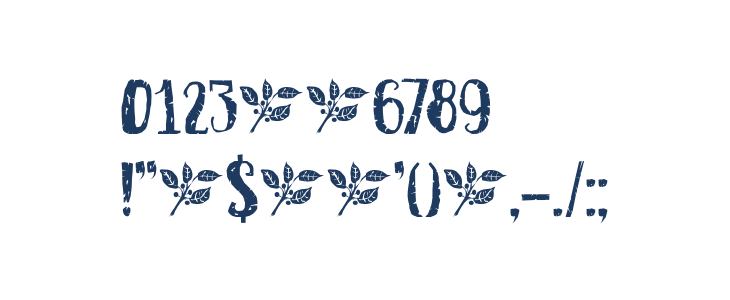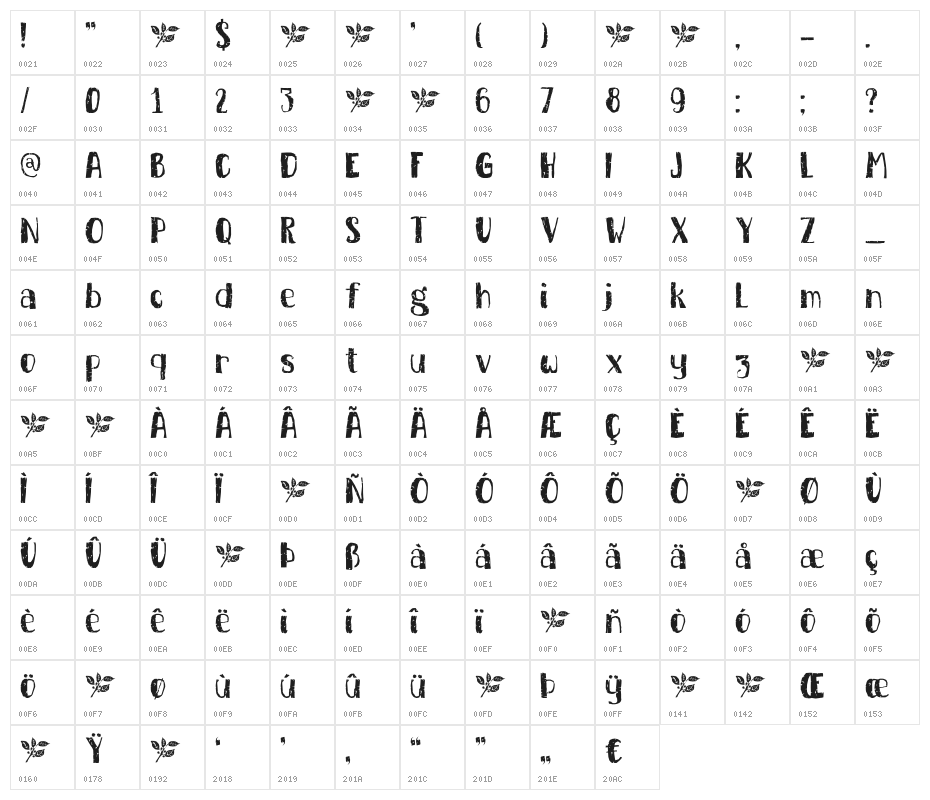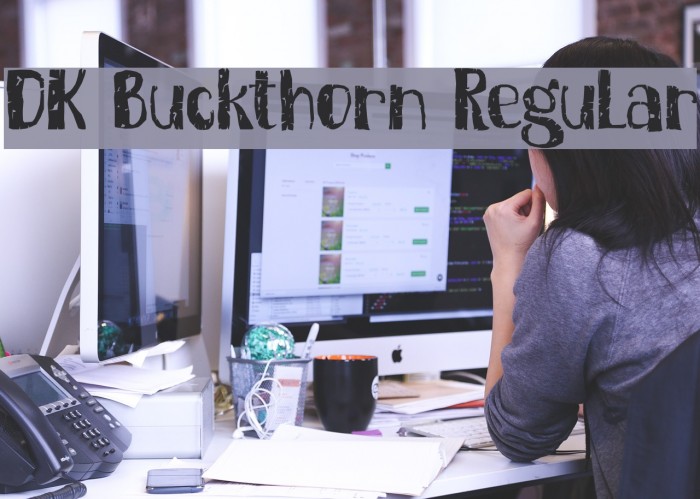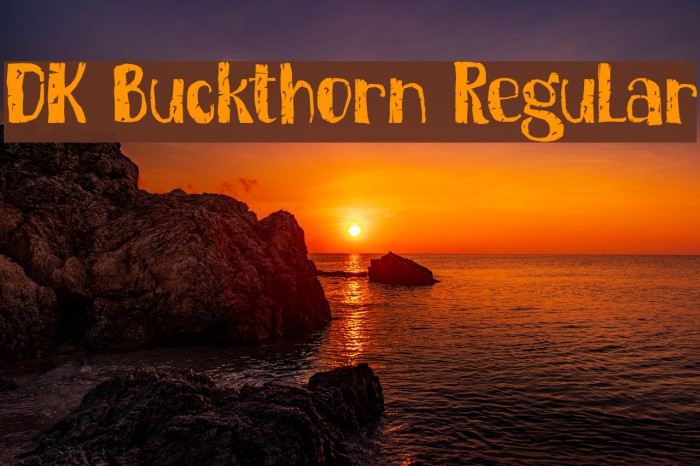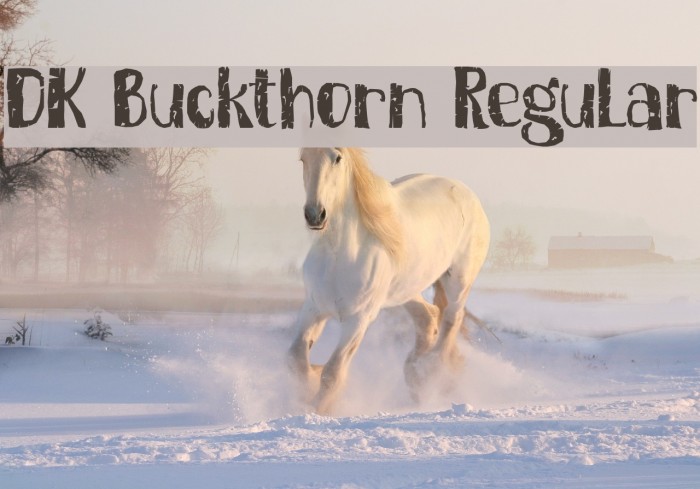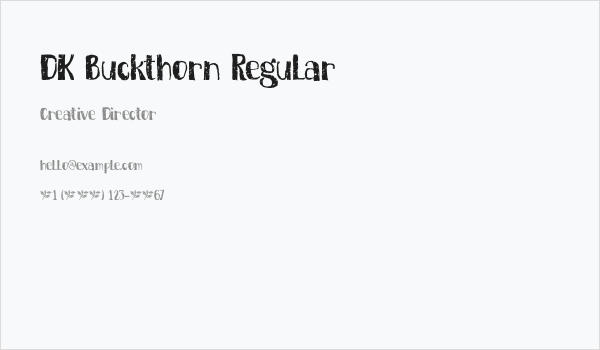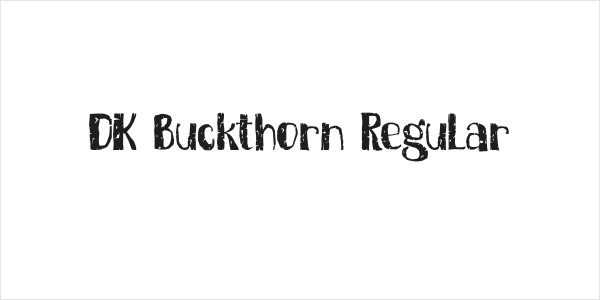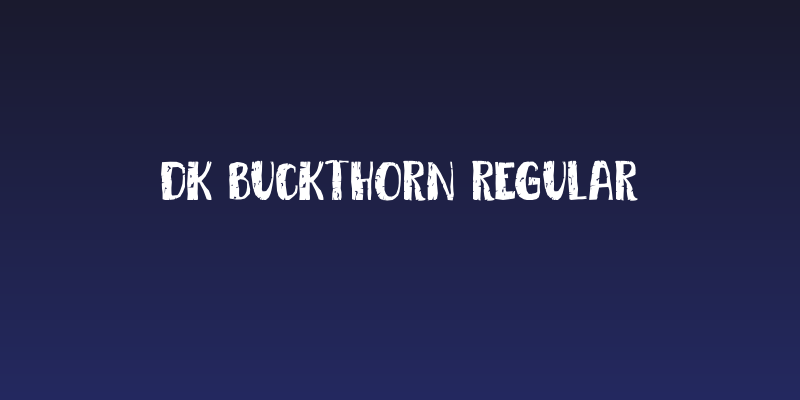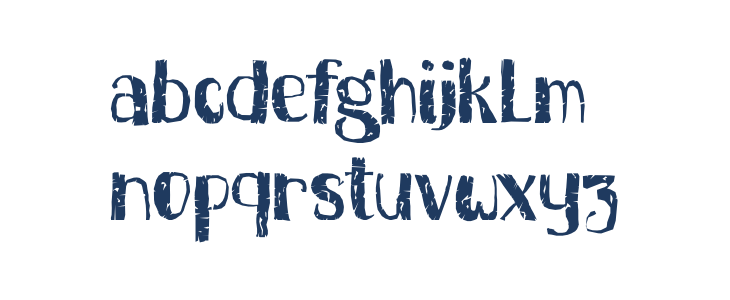
DK Buckthorn Regular Font
DK Buckthorn Regular Description
This font features a bold and rustic style with a distressed texture that gives it a rugged, organic feel. The characters are uniquely crafted with irregular edges and a hand-drawn appearance, making it stand out as a decorative typeface. The uppercase and lowercase letters maintain a consistent style, while the numbers and special characters incorporate leaf motifs, adding a natural element to the design. This font is ideal for projects that require a touch of nature or a vintage, handcrafted aesthetic.
| Overall Style | Rustic, Organic, Decorative |
| Proposed Projects | Ideal for eco-friendly branding, rustic wedding invitations, organic product packaging, and nature-themed posters. |